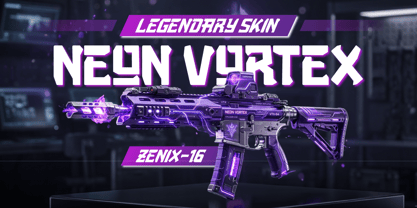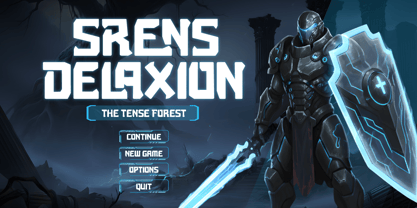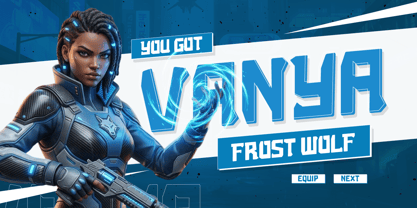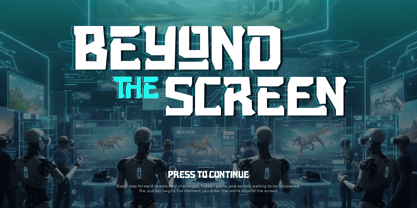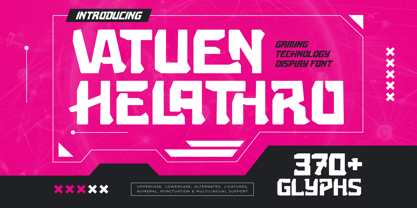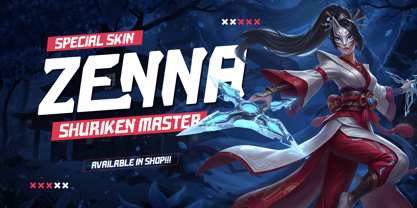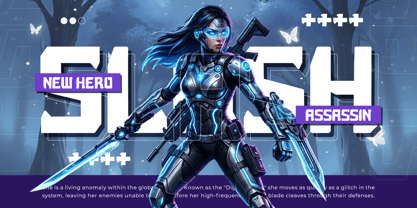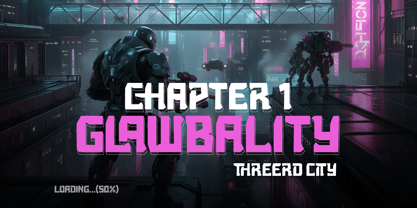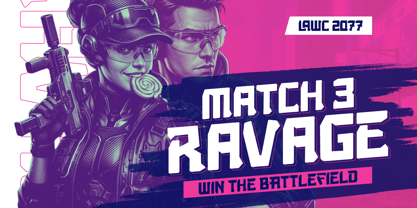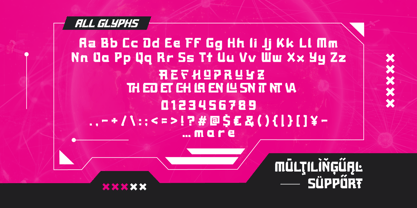
Vatuen Helathro is a Modern Sans Serif typeface designed for the visual needs of the Fintech and digital banking industries. The font features clean geometric structures to provide a professional, stable, and trustworthy impression. Its visual characteristics are ideal for Modern Financial Ecosystems requiring a strong, technology-oriented identity.
The precise letter anatomy with distinctive terminal angle details ensures high readability for Seamless Transaction UI. Inspired by modern banking aesthetics like the Revolut and BCA Digital styles, Vatuen Helathro is highly functional for displaying transaction numbers, balances, and app navigation on mobile devices. Its design structure helps deliver financial information in a clear and organized manner.
As a digital typography solution, Vatuen Helathro supports a progressive and transparent corporate identity in the financial industry. Its flexibility makes this font the right choice for virtual card designs, digital financial reports, and other fintech promotional materials. Vatuen Helathro helps designers strengthen information hierarchy within a modern, secure, and innovative banking ecosystem.
- All glyphs and Feature